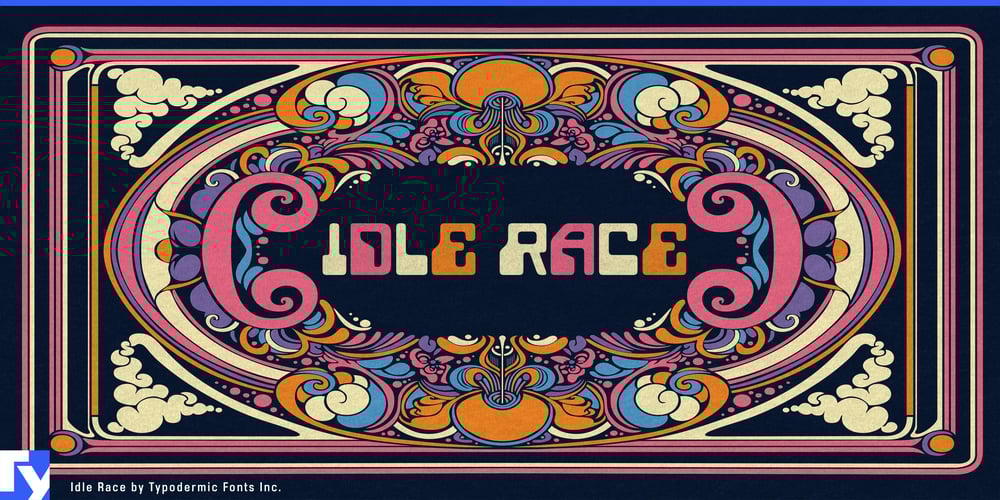
Idle Race Font Family was designed by Ray Larabie and published by Typodermic. Idle Race contains 1 styles and family package options. Groove on, typographic time travelers! Idle Race has just sashayed onto the design scene, and it’s ready to take your eyeballs on a technicolor trip back to the future. It’s a portal to the 1960s, where the flower power revolution collided head-on with the computer age, and the resulting explosion of creativity is still sending shockwaves through time.Idle Race doesn’t just nod to the past; it does the Watusi with it. Born from the DNA of those far-out MICR fonts that once made bank statements look like secret messages from outer space, this typeface has evolved into something altogether more groovy. Its fat, soft shapes are like marshmallows that’ve been squeezed through a transistor radio, creating a visual melody that’s part Carnaby Street chic, part mainframe madness. But don’t let its retro roots fool you—Idle Race is here to party with the present. In uppercase, it struts its stuff like a peacock at a mod fashion show, each letter a statement piece that demands attention. And for those moments when you need to whisper sweet nothings in lowercase, Idle Race obliges with a more subtle, yet equally stylish, set of characters.Imagine your designs speaking in a voice that echoes the optimism of the Space Age, the freedom of the counterculture, and the innovation of the digital revolution—all at once. That’s the power of Idle Race. It’s for the brand that wants to stand out in a sea of sans-serifs, for the poster that needs to grab eyeballs and refuse to let go, for the logo that says, “We’re not just thinking outside the box; we’ve rebuilt the box out of lava lamps and punch cards.” And just when you thought Idle Race couldn’t get any cooler, it reveals its linguistic superpowers. This font doesn’t just speak English with a groovy accent—it’s fluent in a United Nations’ worth of Latin-based European languages. From the fjords of Norway to the plains of Hungary, Idle Race is ready to spread its message of typographic love across borders and through time.Choosing Idle Race for your project isn’t just a design decision—it’s a manifesto. It’s a declaration that you refuse to be bound by the mundane constraints of contemporary typography. It’s for the dreamers, the rebels, the designers who look at the past and the future and say, “Why choose? Let’s have both!” Don’t let your designs be wallflowers at the grand ball of visual communication. Choose Idle Race, and watch as your words transform into a psychedelic symphony of shape and meaning.